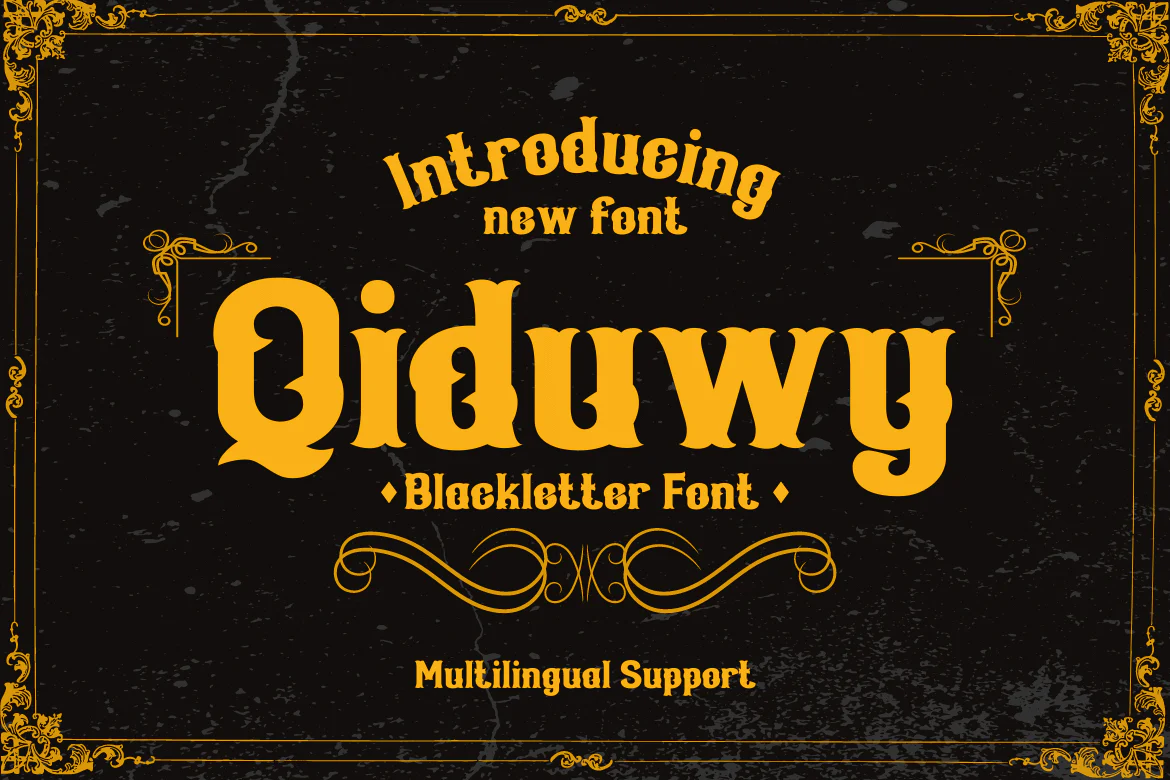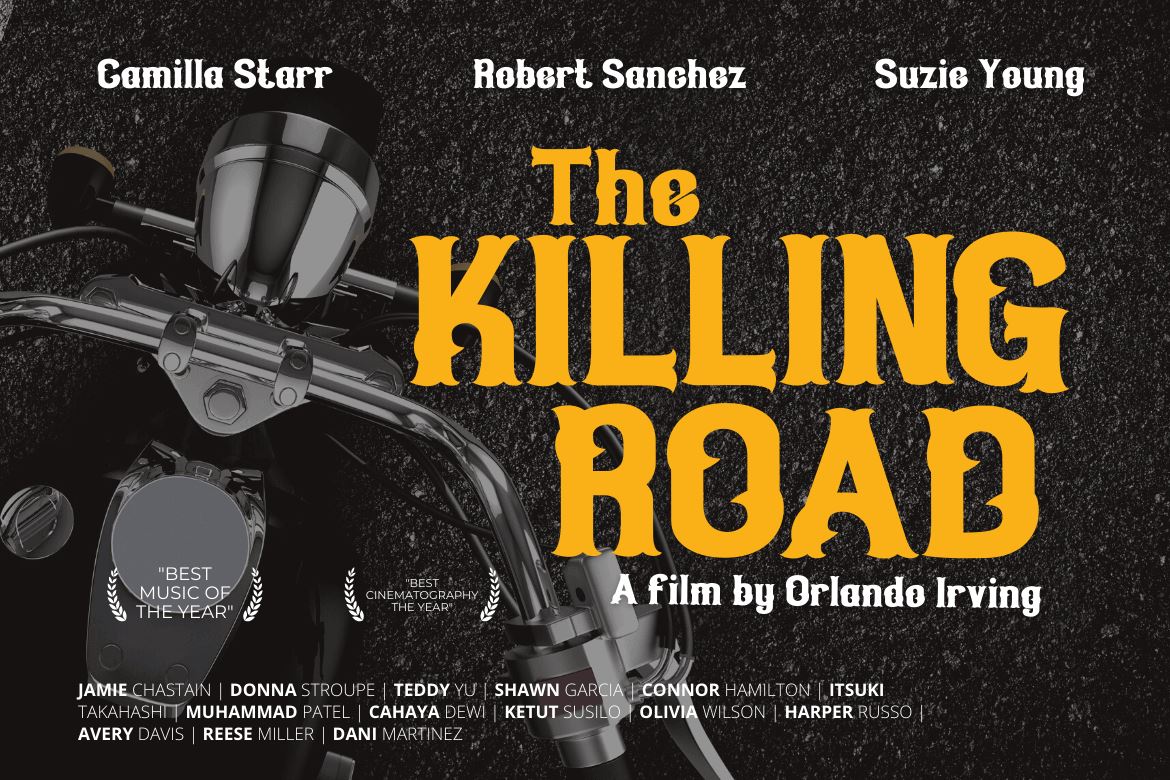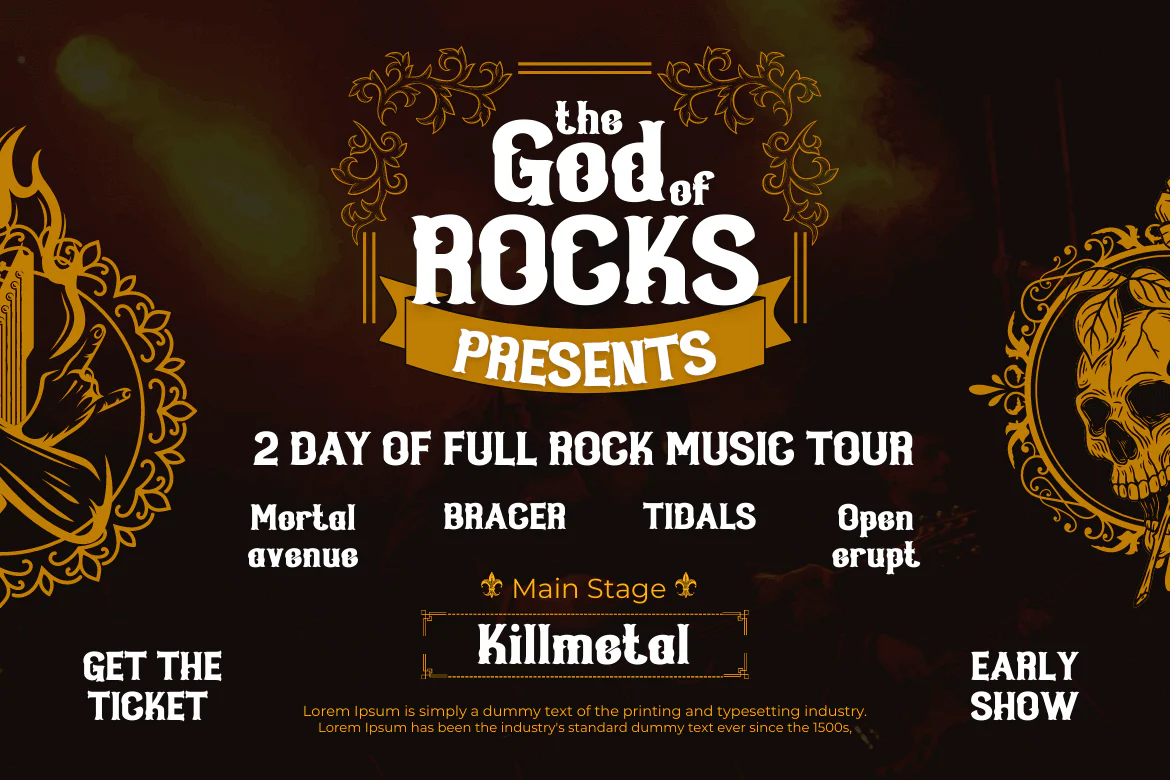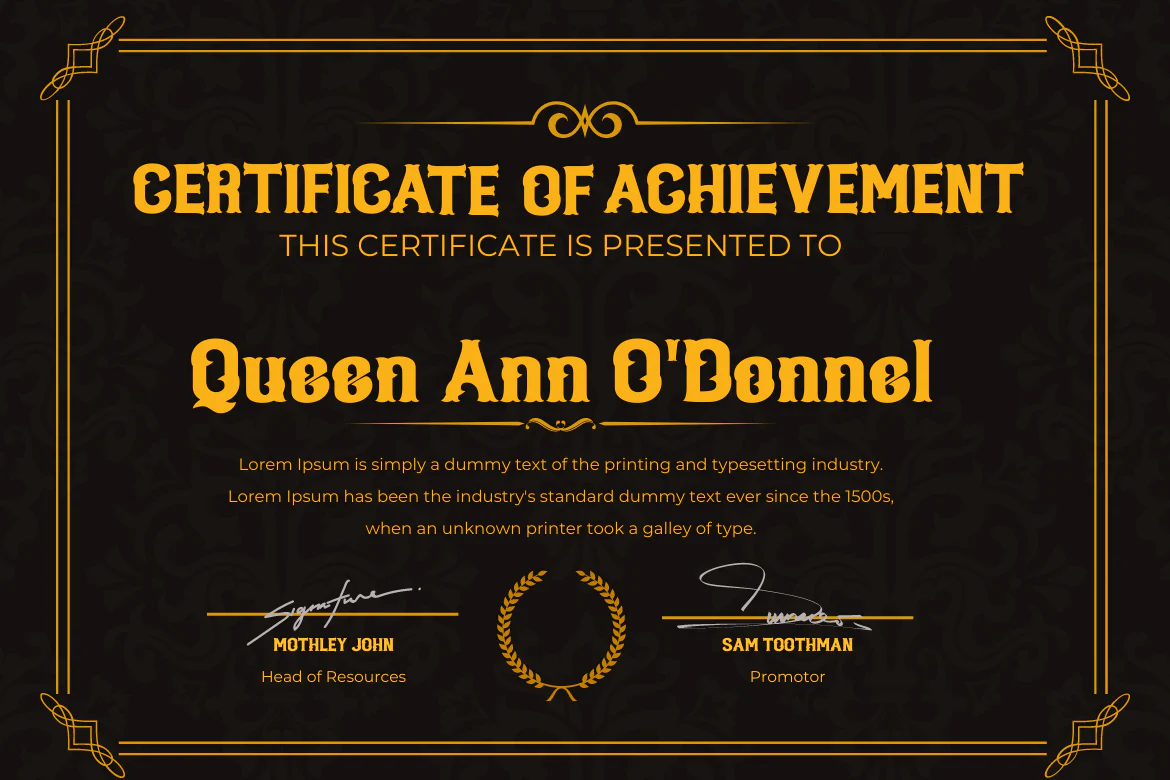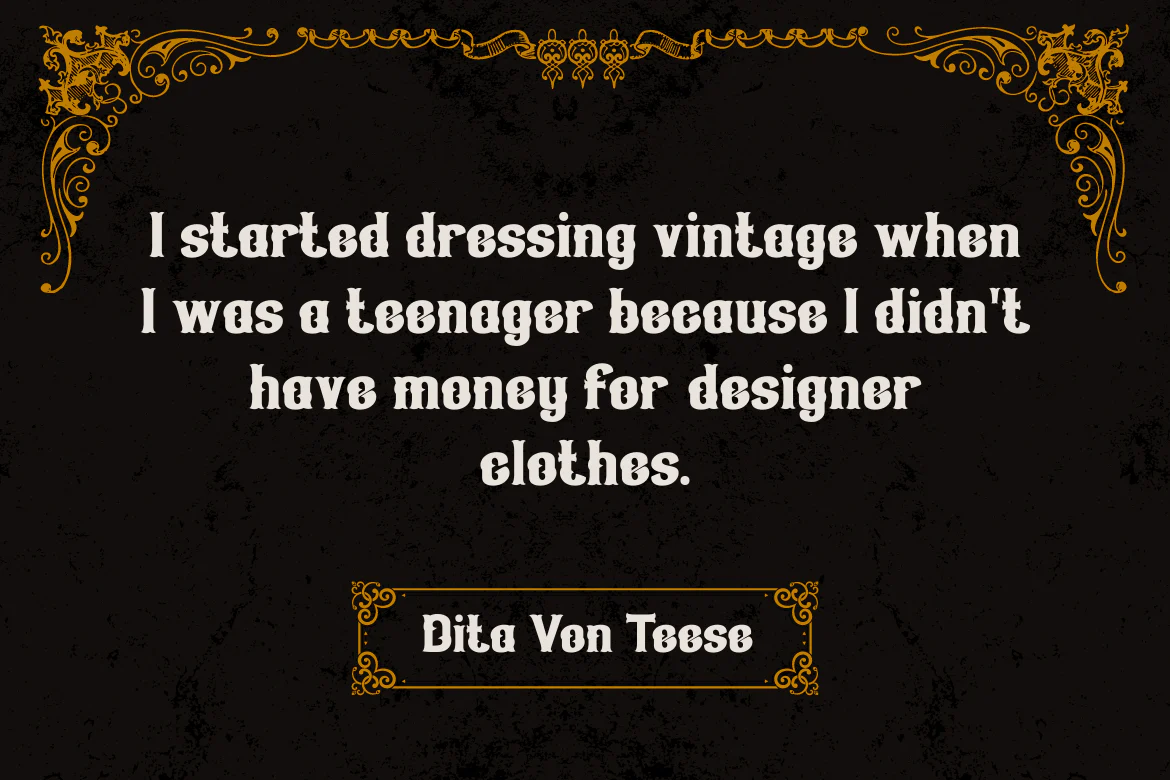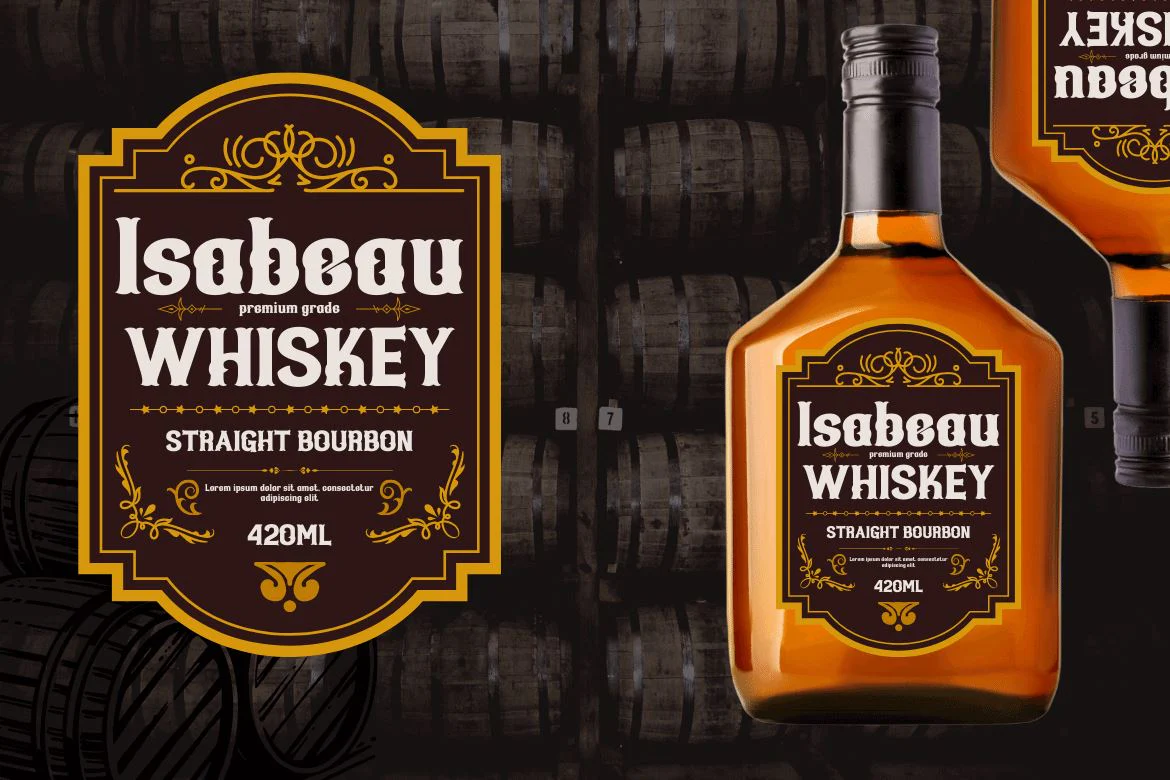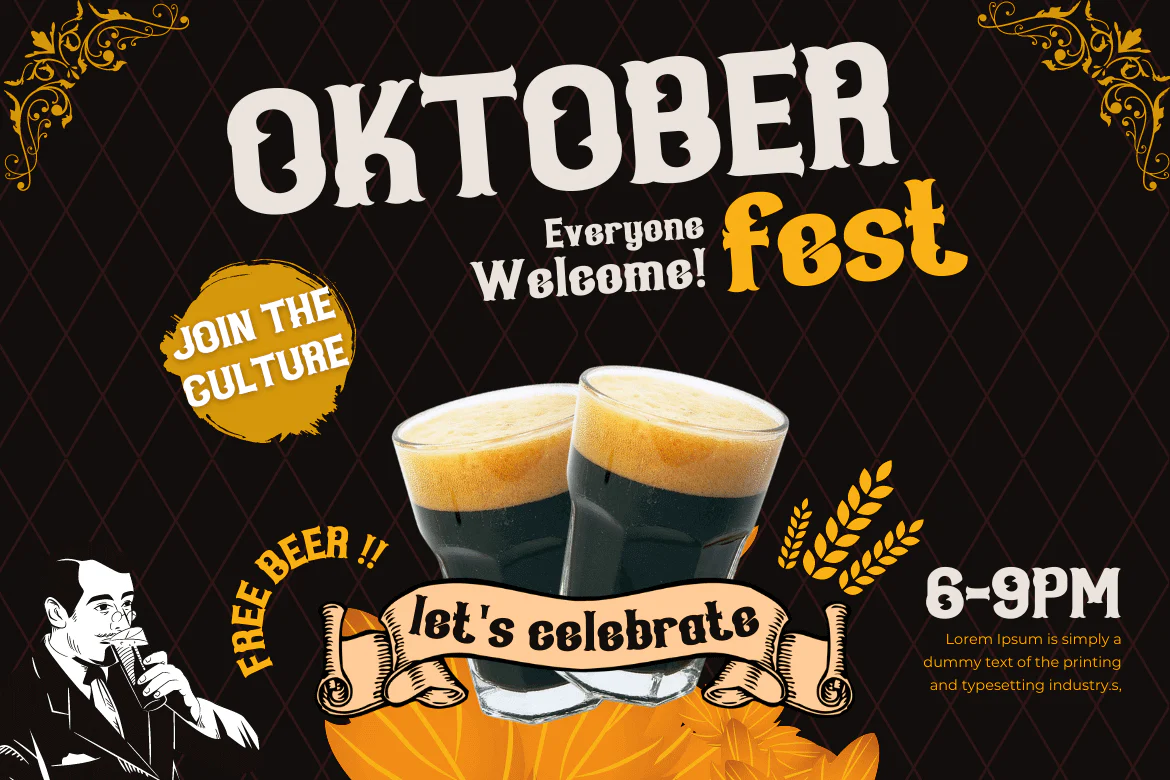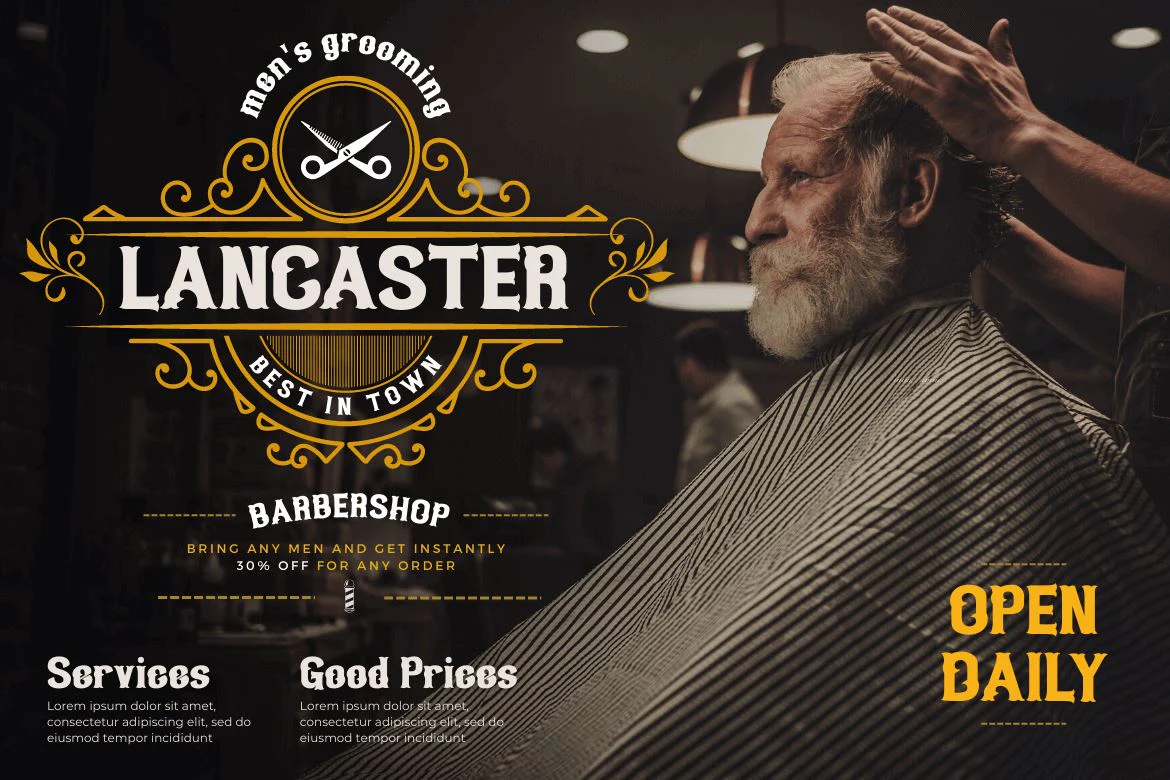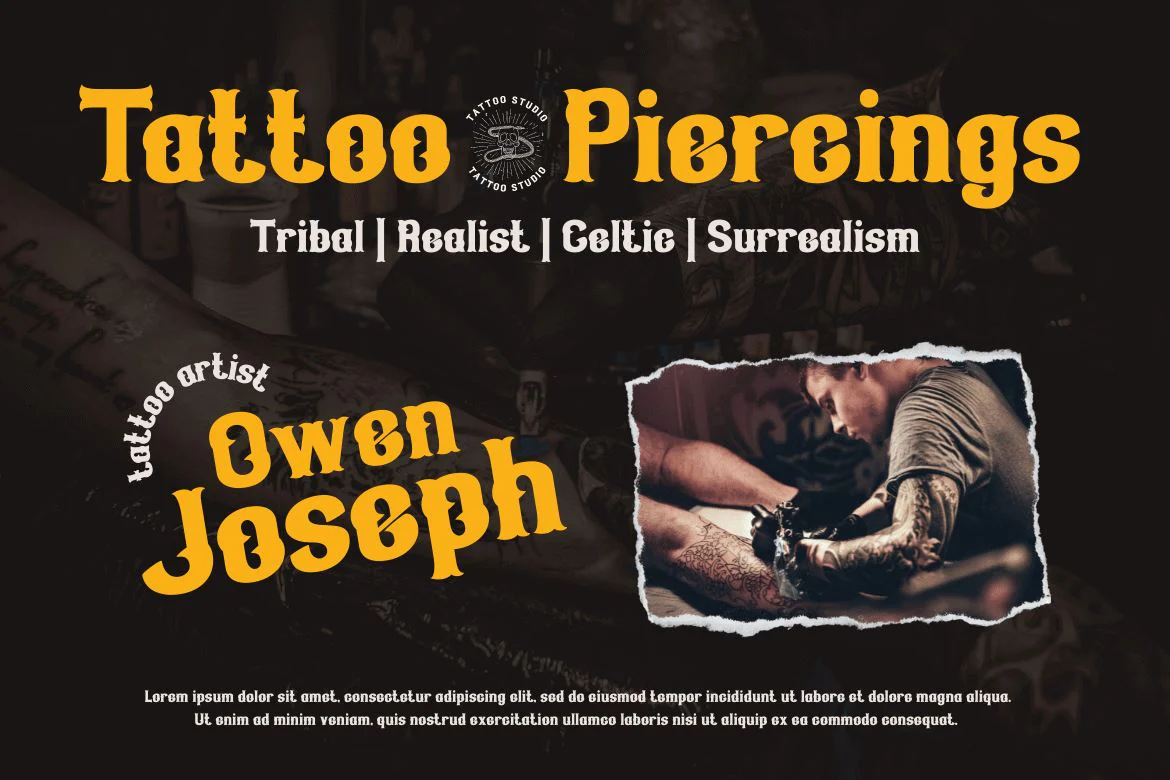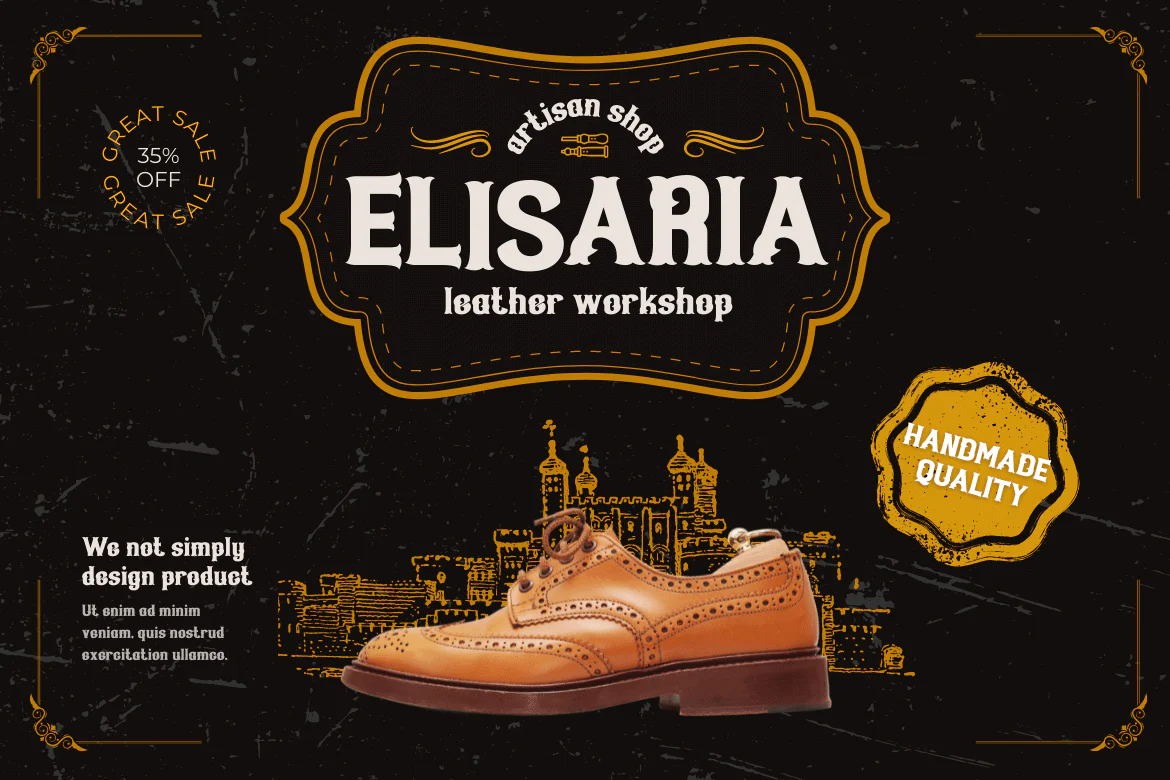
Qiduwy Blackletter Font
Qiduwy is a futuristic and stylish font perfect for designing labels, retro, stamps, badges, Oktoberfest posters, packaging, titles, beer, logos, barbershops, whiskeys, tattoos, music, movies, or certificates.
This font is perfect for a dark and mysterious look. Bold black lines make this font perfect for a classy and stylish look. The wide, bold typeface gives this font an upscale look. Sharp corners and edges add a touch of class. This is the perfect font for a dark and mysterious look.
Qiduwy is a futuristic and stylish font perfect for designing labels, retro, stamps, badges, Oktoberfest posters, packaging, titles, beer, logos, barbershops, whiskeys, tattoos, music, movies, or certificates.
This font is perfect for a dark and mysterious look. Bold black lines make this font perfect for a classy and stylish look. The wide, bold typeface gives this font an upscale look. Sharp corners and edges add a touch of class. This is the perfect font for a dark and mysterious look.